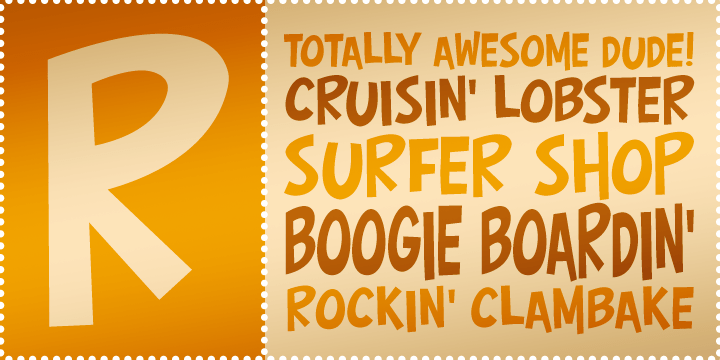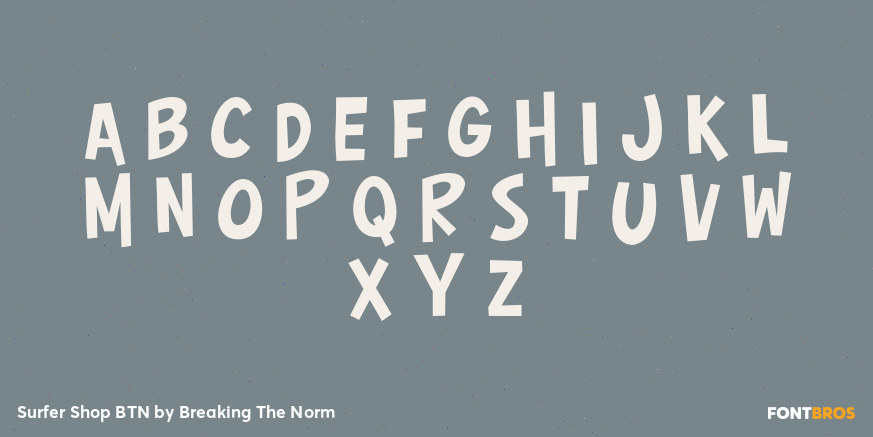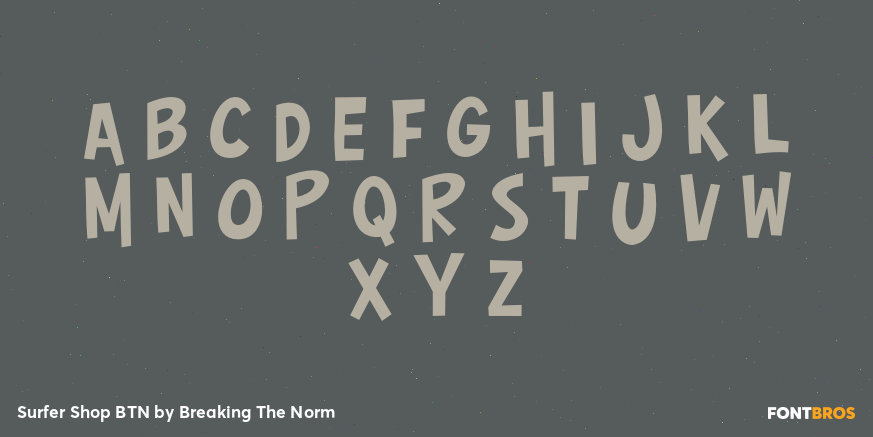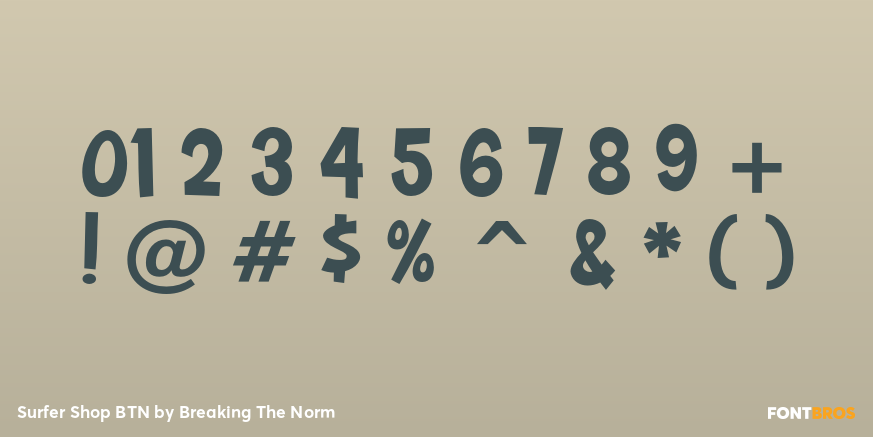
Surfer Shop BTN
Font Family by Breaking The Norm
Surfer Shop BTN is a playful beach-inspired display family with an easygoing, sun-soaked personality. Built for fun headline use, it brings a casual coastal vibe that works well for surf-themed graphics, beachwear branding, vacation promotions, signage, packaging, posters, and summer event design. Its lively character feels relaxed and approachable while still offering enough strength for bold display impact. With Regular, Bold, Condensed, and Condensed Bold styles, Surfer Shop BTN gives designers flexible options for creating cheerful typography with a breezy seaside attitude.